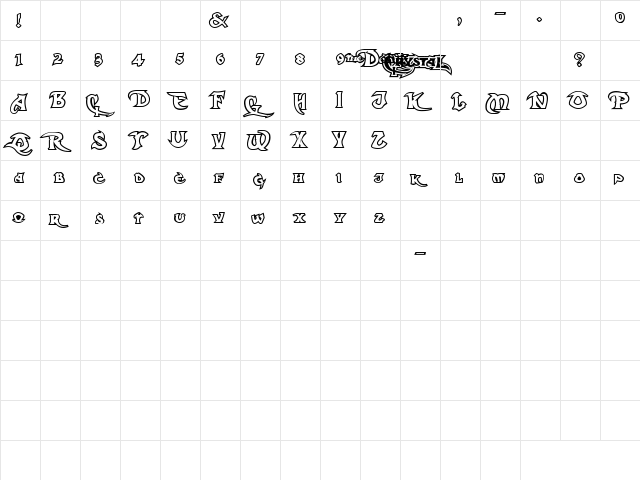
Dark Crystal Outline Font Preview
Dark Crystal Outline Dark Crystal Outline
| Designer | Dennis Ludlow |
Design Context for Dark Crystal Outline Typeface
Dark Crystal Outline is built around its visual character rather than neutral utility — its distinctive forms are designed to make an impression at display sizes.
Font Pairing: Pair with a clean neutral sans-serif for body copy to let Dark Crystal Outline's character lead without overwhelming the composition.
Pro Tip: Use Dark Crystal Outline exclusively at display sizes — it was designed to be seen, not read at length. Let a neutral companion handle body copy.